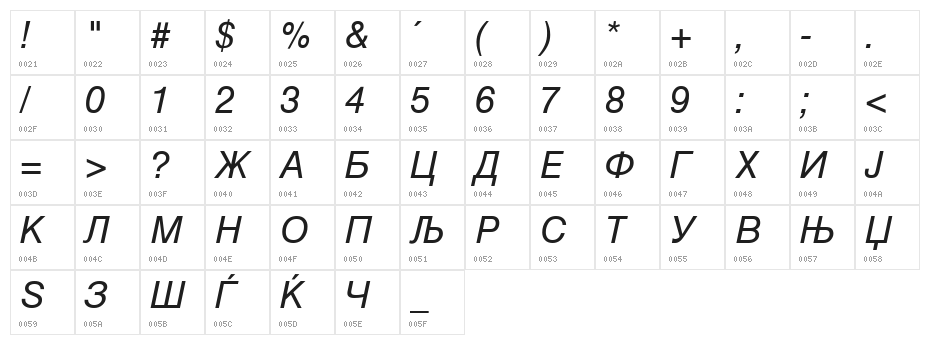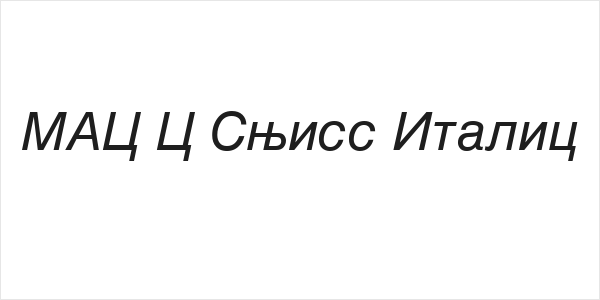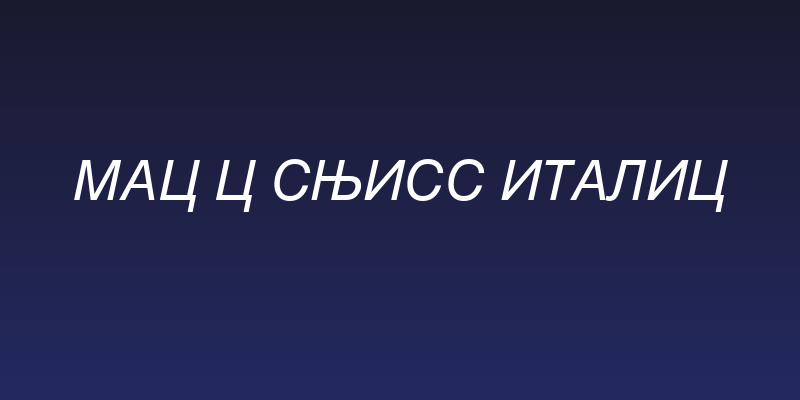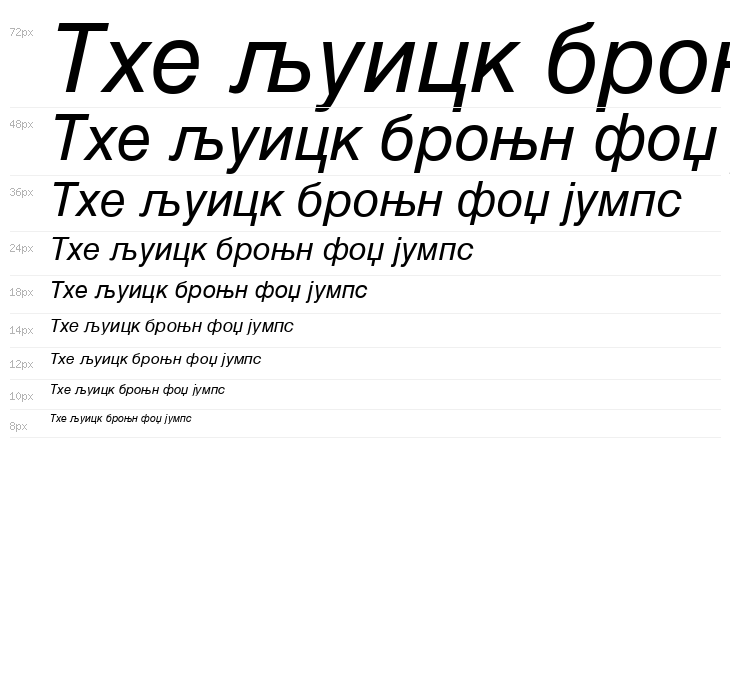
MAC C Swiss Italic Font
MAC C Swiss Italic Description
This font features a clean, modern design with a slight italic slant, giving it a dynamic and forward-moving appearance. The characters are well-proportioned with a consistent stroke width, contributing to its legibility and versatility. The font includes both uppercase and lowercase Cyrillic letters, as well as numerals and a range of special characters. Its design is minimalistic, making it suitable for a variety of applications where clarity and professionalism are desired.
| Proposed Projects | Ideal for corporate branding, editorial design, digital interfaces, and signage where a modern and professional look is required. |